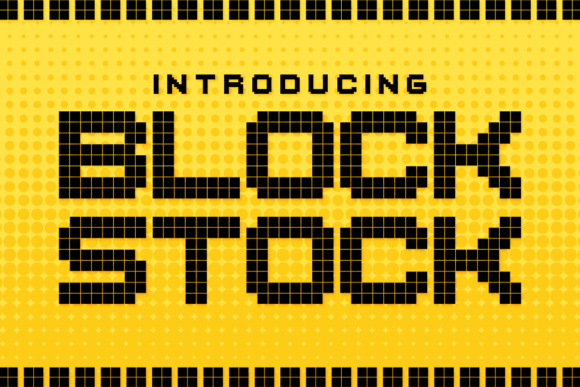
Introducing Block Stock Font: The Ultimate Typeface for Designs that Demand Attention
In the world of design, typography plays a crucial role in capturing the audience’s attention and conveying the message effectively. With numerous typefaces available, finding the perfect one that stands out from the crowd can be a daunting task. This is where Block Stock Font comes into play – a unique and versatile typeface designed to elevate your designs and make them truly unforgettable.
What is Block Stock Font?
Block Stock Font is a distinctive typeface that boasts a bold, blocky design, making it perfect for designs that require a strong visual impact. Its unique characteristics and clean lines make it an excellent choice for a wide range of applications, from logos and branding to posters, flyers, and digital media.
Key Features of Block Stock Font
- Bold and Blocky Design: Block Stock Font features a sturdy, block-like design that demands attention and exudes confidence.
- Clean Lines: The font’s clean lines ensure that your designs look crisp and professional, even at larger sizes.
- Versatile: Block Stock Font can be used for various design projects, including logos, branding, posters, flyers, and digital media.
- Easily Readable: Despite its bold design, Block Stock Font remains easily readable, making it perfect for headlines, titles, and short paragraphs.
Why Choose Block Stock Font?
With so many typefaces available, why should you choose Block Stock Font for your next design project? Here are a few compelling reasons:
- Uniqueness: Block Stock Font’s distinctive design sets it apart from more traditional typefaces, ensuring your designs stand out from the crowd.
- Flexibility: The font’s versatility makes it suitable for a wide range of design projects, from minimalist designs to bold and edgy creations.
- Time-Saving: With Block Stock Font, you can create stunning designs quickly and efficiently, saving you time and effort.
How to Use Block Stock Font Effectively
To get the most out of Block Stock Font, here are some expert tips on how to use it effectively:
- Pair with Other Fonts: Combine Block Stock Font with other fonts to create visually appealing contrast and add depth to your designs.
- Experiment with Colors: Try out different colors and gradients to add an extra layer of visual interest to your designs.
- Play with Sizes: Experiment with different font sizes to create a hierarchy of information and draw attention to key elements.
Who Can Benefit from Block Stock Font?
Block Stock Font is an excellent choice for a variety of designers and crafters, including:
- Graphic Designers: Add a bold touch to your designs and create stunning visual content.
- Logotype and Branding Experts: Create memorable logos and branding materials that stand out.
- Digital Artists: Incorporate Block Stock Font into your digital art and enhance your creations.
- Crafters and Makers: Use Block Stock Font to add a professional touch to your handmade projects and crafts.
| Font Name | Block Stock Font |
| Author | Chequered Ink |
In conclusion, Block Stock Font is a unique and versatile typeface that can elevate your designs and make them truly unforgettable. Its bold, blocky design, clean lines, and versatility make it an excellent choice for a wide range of design projects. Whether you’re a graphic designer, logotype expert, digital artist, or crafter, Block Stock Font is sure to become a valuable addition to your design toolkit.